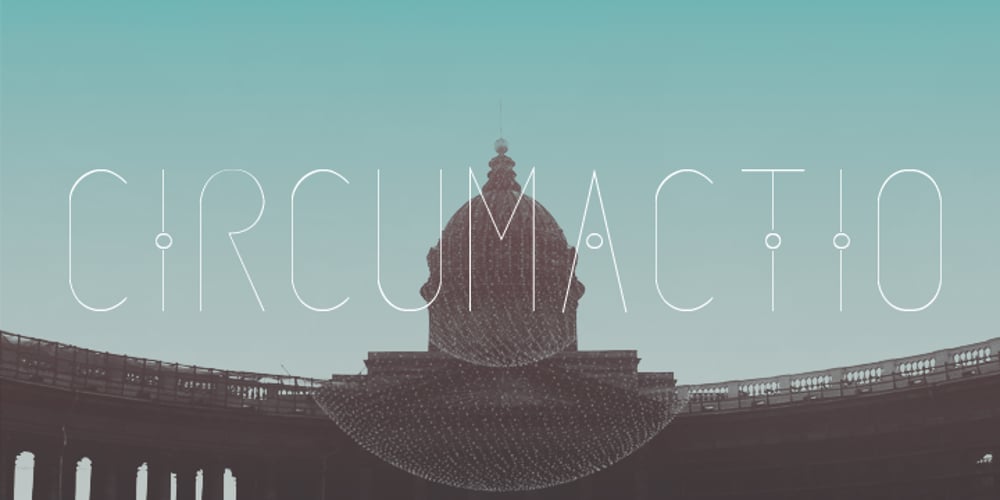
Circumactio Font Family was designed by published by Lucas Blat. Circumactio contains 1 styles and family package options. Circumactio, the Latin for Spin, is a thin Typeface based on a grid. The circle in the grid replaces the Crossbar, and gives the Typeface a little differential.